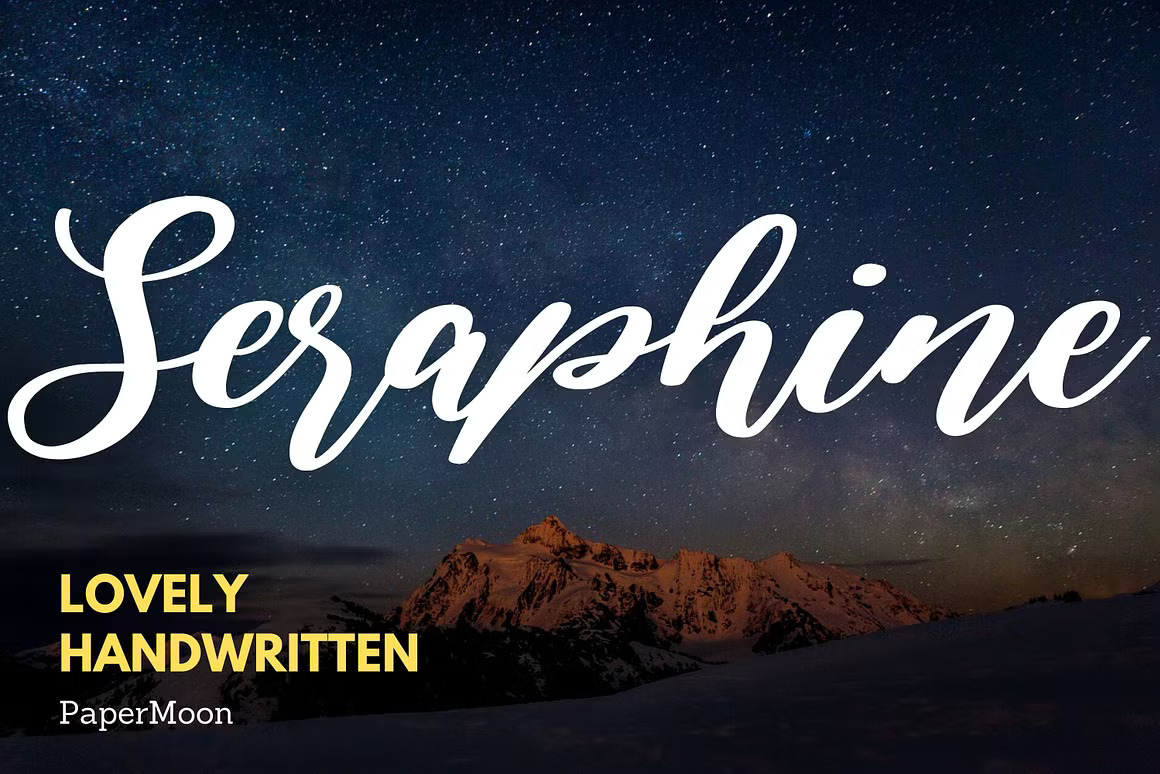
Seraphine Handwritten Script Font
Introducing Seraphine Script Font: Your Go-To Typeface for Elegant and Creative Designs!
We are excited to present the charming Seraphine Script Font, a beautifully crafted typeface designed to bring elegance and sophistication to all your creative projects.
Full Character Set: A-Z, ensuring complete versatility for any design application Numerals & Punctuations: OpenType Standard, perfect for professional use Accent Support: Multilingual characters for global design compatibility Stylistic Alternates: Add a unique and elegant touch to your typography The Seraphine Script Font is perfect for bringing a refined, hand-crafted touch to a variety of projects, including branding, invitations, editorials, and digital graphics. Its elegant script style ensures your designs are both creative and memorable, making a lasting impact.
Whether you’re working on professional branding or personal creations, Seraphine provides the flexibility and style you need to elevate your work. Every detail, from character to alternate, is designed with precision to maintain both visual appeal and readability.
Transform your designs with the timeless elegance of Seraphine Script Font – the perfect typeface for versatile and sophisticated typography.